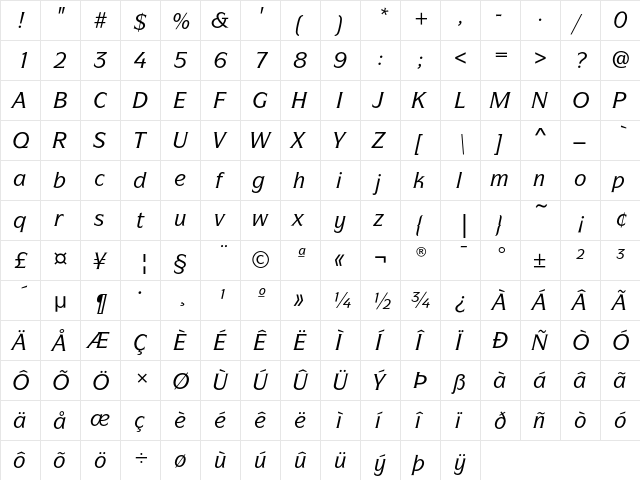
SymbolEF MediumItalic Font Preview
SymbolEF MediumItalic
Design Context for SymbolEF Typeface
SymbolEF takes a measured approach to typography — its balanced proportions and neutral character make it a reliable workhorse for both digital and print work. Its italic angle brings a sense of urgency and motion to the letterforms.
Pro Tip: Use SymbolEF for emphasis, pull quotes, and subheadings where its slanted energy can add rhythm to the layout.